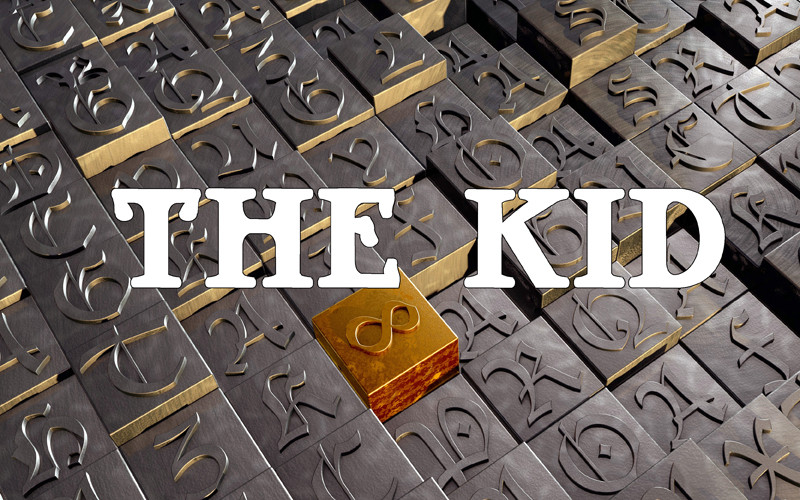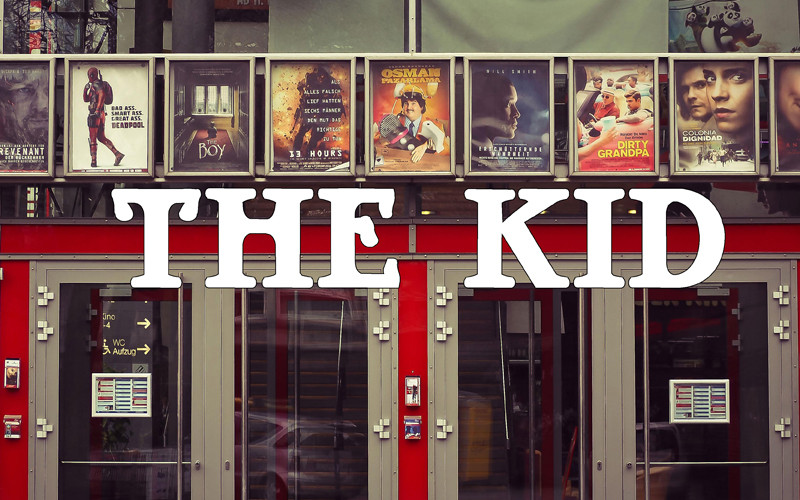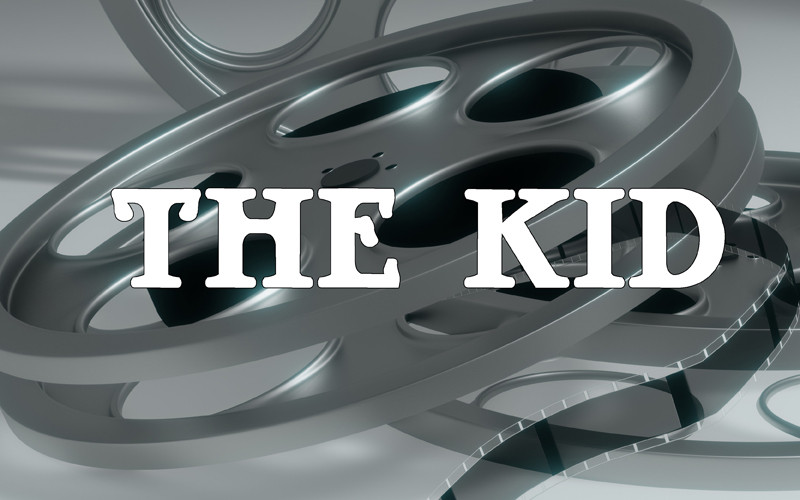
Directly from the film directed and starring Charles Chaplin, the new font for all fans of the film.
Direttamente dal film diretto e interpretato da Charles Chaplin, il font inedito per tutti gli estimatori del film.
Directly from the film directed and starring Charles Chaplin, the new font for all fans of the film.
Direttamente dal film diretto e interpretato da Charles Chaplin, il font inedito per tutti gli estimatori del film.